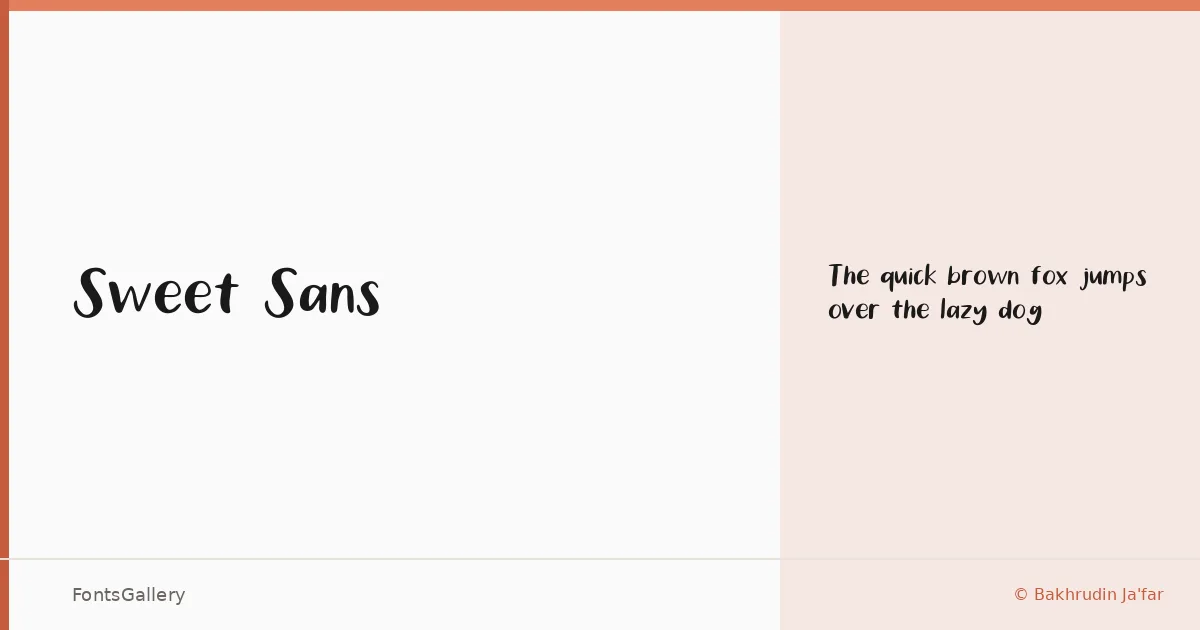
About Sweet Sans Font
There is a lightness to these letterforms — a handwritten ease that feels casual without losing its composure. Sweet Sans was drawn by Bakhrudin Ja'far under the Roomspace Creative Lab banner, and the single Regular cut arrives in both TTF and OTF formats, ready to drop straight into most workflows.
This is a handwritten face that sits at the intersection of playful and romantic — the kind of script that feels whimsical but still reads cleanly at display sizes. The forms carry a modern looseness rather than the stiffness of a formal calligraphic hand, which keeps things feeling fresh and approachable. With only one style in the family, every decision about weight and emphasis falls to the designer working with it, making thoughtful layout choices all the more important.
It earns its keep in branding, logo work, invitation cards, and greeting card designs where a touch of handmade warmth is the whole point — social media graphics and small-batch packaging are equally natural territory. For contrast and grounding, the listed pairing options span a wide range: Anglecia Pro and Aranea bring structured serif weight, Helvetica and Abrade offer clean neutrality, and AQUA adds its own expressive character alongside it.